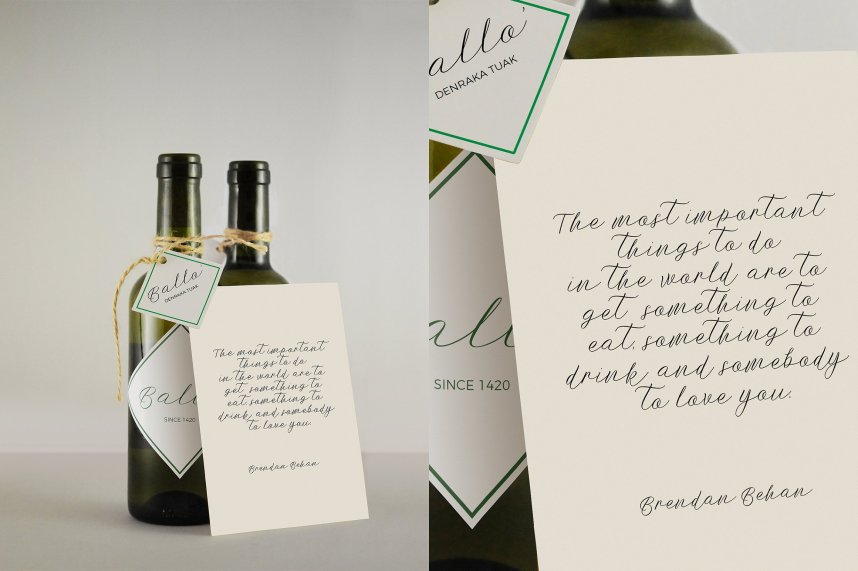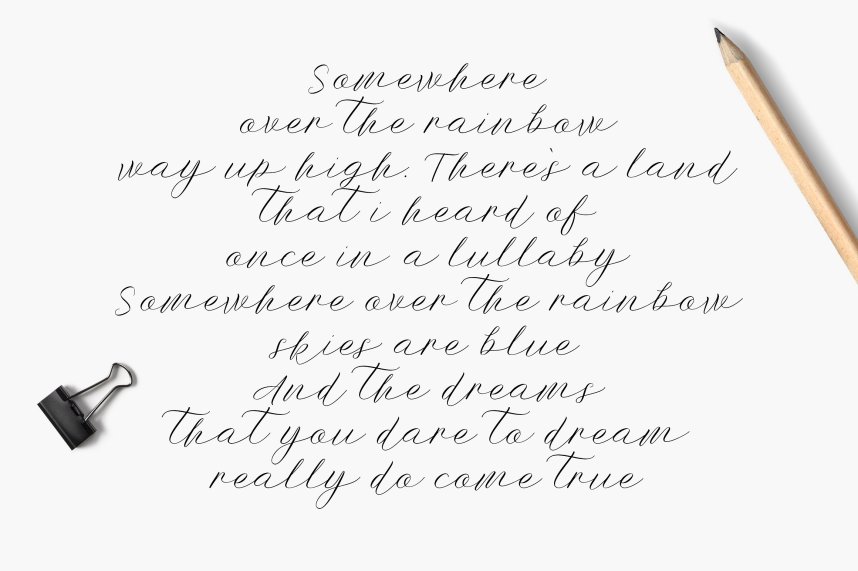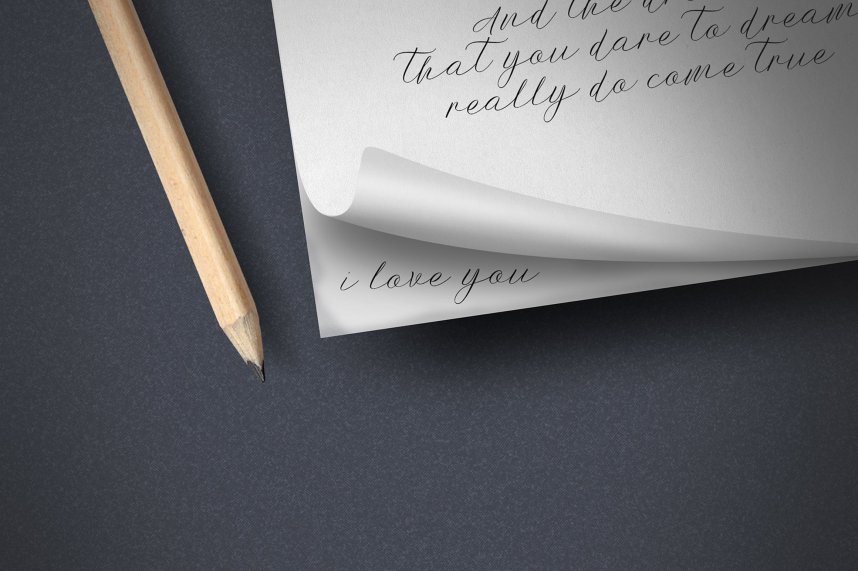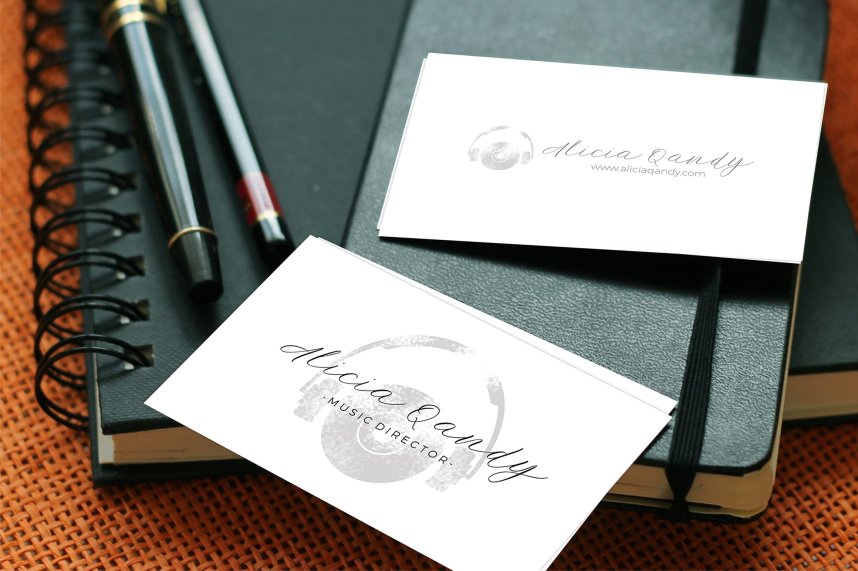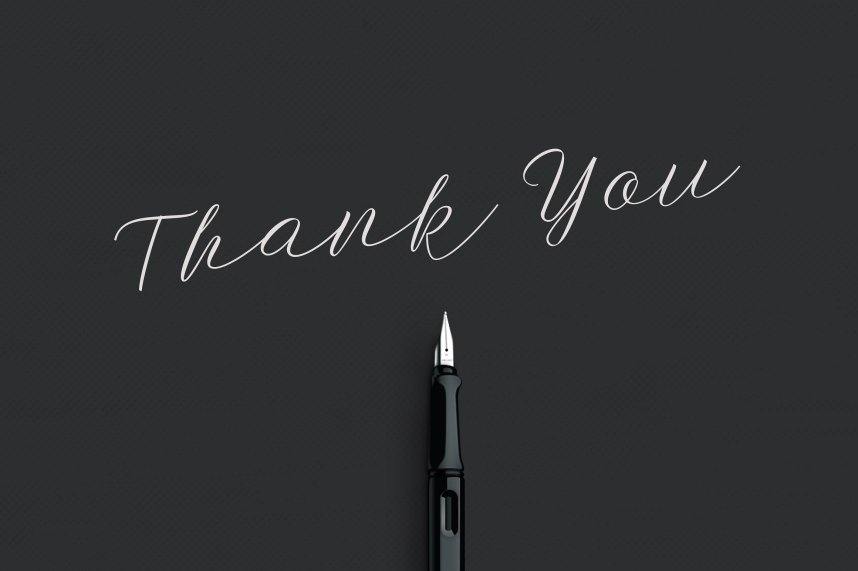
Botdoh Script Font
Introducing Botdoh Script Font! Botdoh Script designed by Elementype, this is a premium font, are sold on creativemarket, but it was great, it is free today for download. Font script to make your text look beautiful. With a signature style that makes it look more natural. Ideal for your branding, handwritten quotes, logo, header, poster, apparel, packaging, business cards, etc.